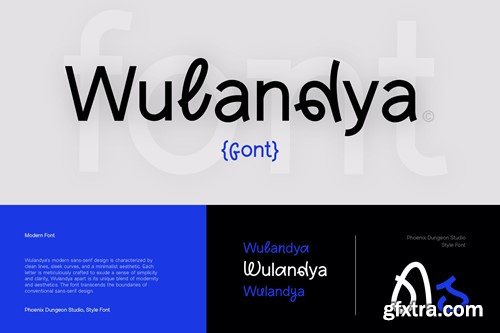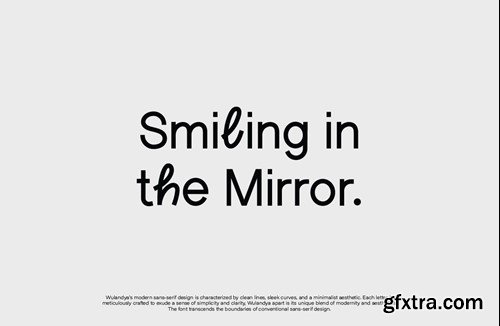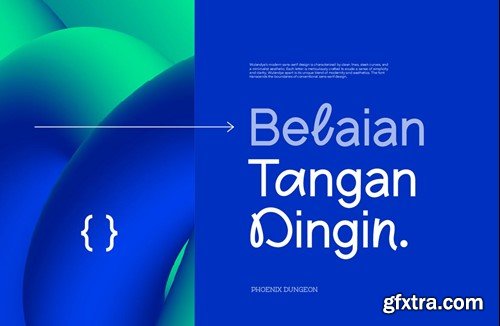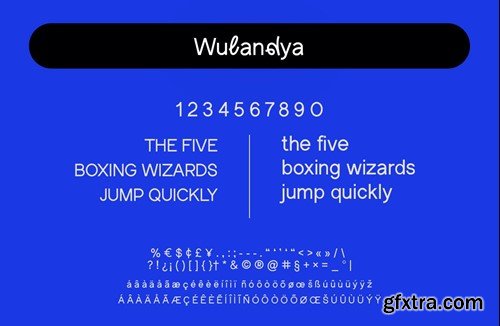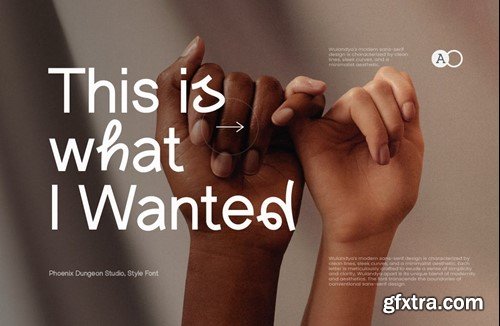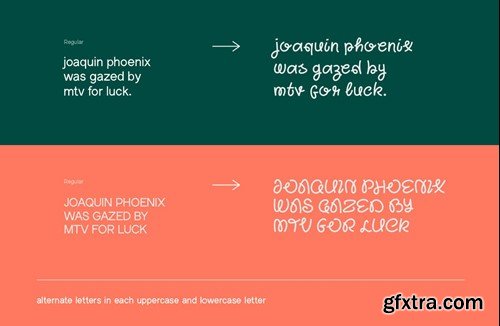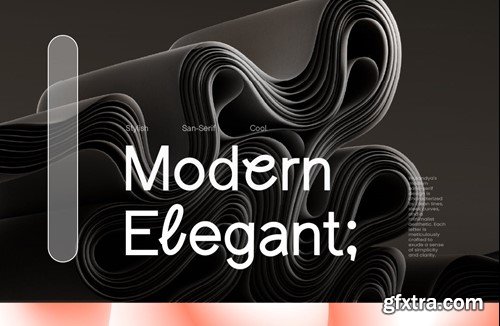
Wulandya Font
Wulandya font is a modern sans-serif design is characterized by clean lines, sleek curves, and a minimalist aesthetic. Each letter is meticulously crafted to exude a sense of simplicity and clarity, Wulandya apart is its unique blend of modernity and aesthetics. The font transcends the boundaries of conventional sans-serif design. What’s in the package : Thank you